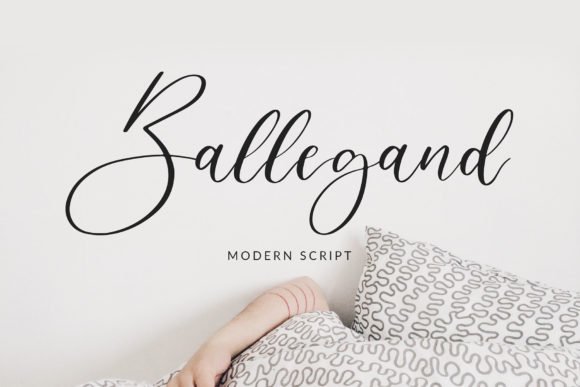
That’s why we’re excited to introduce you to the beautiful Ballegand Font, a luxurious and dainty handwritten font that’s perfect for adding a touch of romance and whimsy to your designs. With its timeless charm and elegant flair, Ballegand Font is the perfect choice for designers who want to create something truly special. Whether you’re designing a wedding invitation, a baby shower card, or just a simple greeting, Ballegand Font is sure to add a touch of sophistication and class.
Review: Ballegand Font
Overall, I was quite impressed with the Ballegand Font, but it has its quirks. Let’s dive in.
- The font has a beautiful, elegant script feel to it. It’s perfect for projects that need a touch of sophistication.
- The x-height is well-balanced, making it easy to read, even at smaller font sizes.
- The font includes a wide range of language support, which is a big plus for designers who work with clients from diverse backgrounds.
- The OpenType features are well-implemented, allowing for some nice ligature and swash options.
- The font can be a bit too ornate for some projects. The flourishes and swashes can be distracting if not used carefully.
- The font is not ideal for large blocks of text. The script feel can make it harder to read at longer lengths.
In conclusion, the Ballegand Font is a solid choice for designers who need a high-end script font. However, it’s essential to use it judiciously and consider the project’s specific needs. With some careful selection and styling, this font can be a real showstopper.
The Ballegand font is ideal for creating elegant and sophisticated designs, such as:
- Luxury branding and packaging
- High-end event promotions
Remember to use the Ballegand font in conjunction with other elegant design elements to achieve a cohesive and sophisticated look.